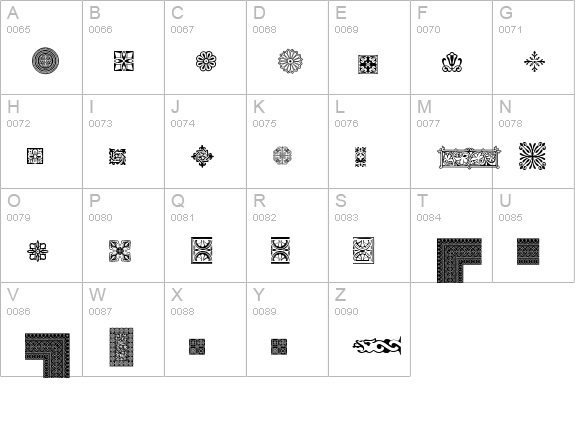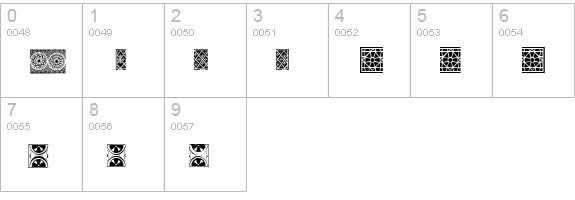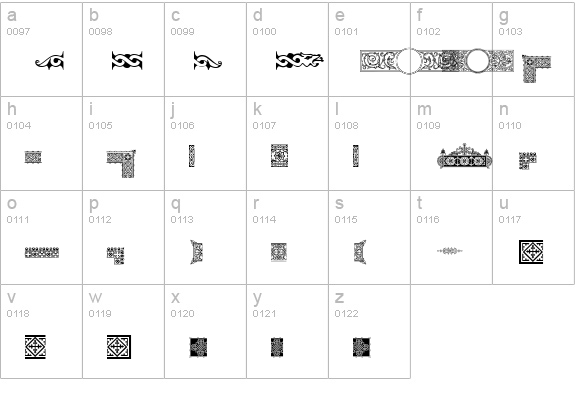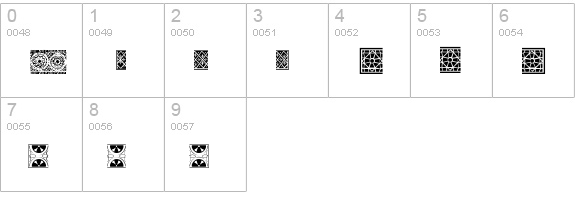
PFOrnmTreasures1-Regular Font Details
PFOrnmTreasures1-Regular is the standard, neutral variant in the PFOrnmTreasures1 typeface family \xE2\x80\x94 well suited to general body text, paragraphs, and standard typographic work.
PFOrnmTreasures1-Regular is a unique and elegant font that is perfect for adding a touch of beauty and sophistication to your designs. It features intricate ornamental details that will make your text stand out and capture the attention of your audience. This font is versatile and can be used for various projects such as invitations, posters, logos, and more. The best part is that PFOrnmTreasures1-Regular is available for free download at FontsMarket.com. You can easily access this stunning font and use it in your projects without any cost. Don't miss out on the opportunity to enhance your designs with this exquisite typeface. Download PFOrnmTreasures1-Regular today and elevate your creations to the next level.